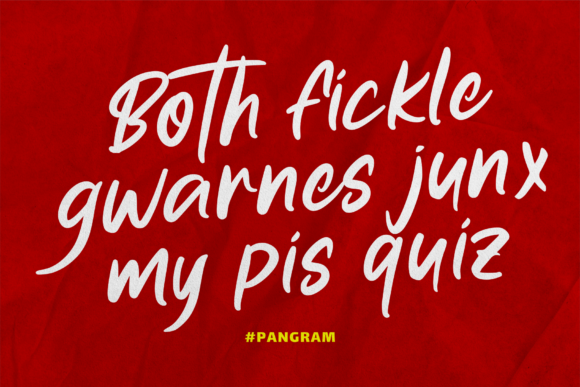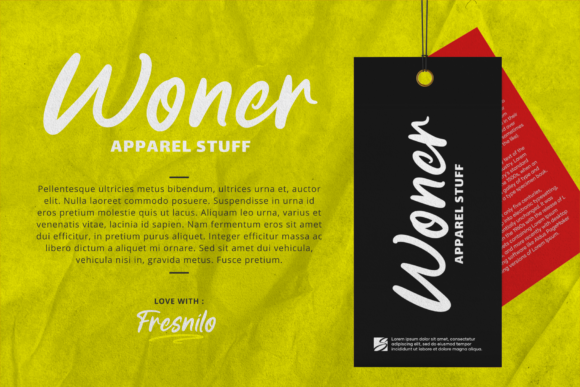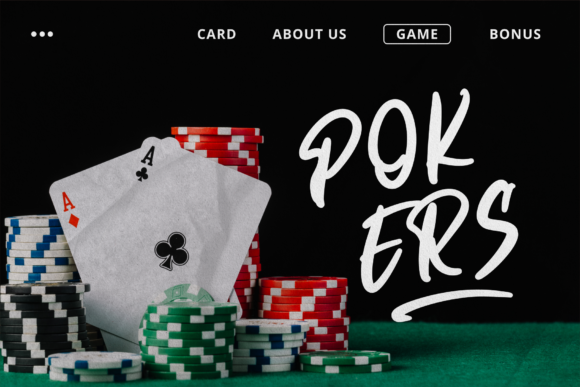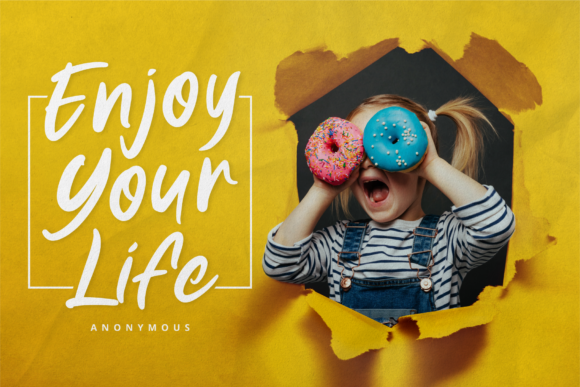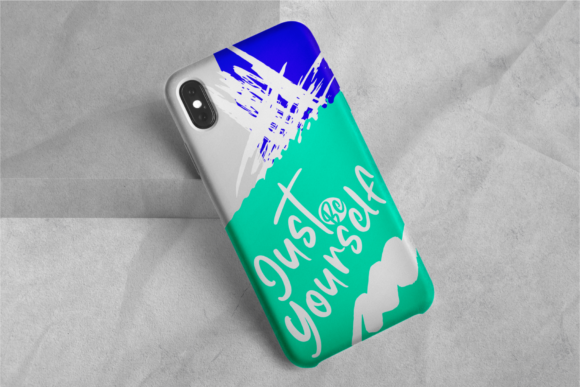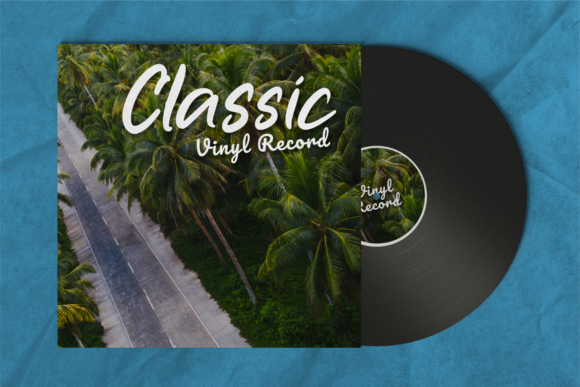
Fresnilo Font: A Simple yet Powerful Brushed Handwritten Font
In the world of typography, fonts play a crucial role in conveying the tone and personality of a design. For designers and crafters looking for a font that exudes strength, confidence, and dynamism, Fresnilo Font is an excellent choice. This simple and thick lettered brushed handwritten font has gained popularity for its unique characteristics and versatility. In this article, we’ll dive into the features and benefits of Fresnilo Font and explore how it can elevate your designs.
What is Fresnilo Font?
Fresnilo Font is a brushed handwritten font that boasts a simple yet bold design. Its thick letters and smooth brushstrokes give it a distinctive look that’s both strong and elegant. The font’s simplicity makes it highly legible, while its dynamic feel adds a touch of sophistication to any design.
Key Features of Fresnilo Font
- Simple and Thick Lettered: Fresnilo Font features thick, sturdy letters that make it perfect for headlines, titles, and emphasis text.
- Brushed Handwritten: The font’s brushed handwritten style gives it a personal and organic feel, making it ideal for designs that require a touch of warmth and character.
- Strong and Confident: Fresnilo Font exudes confidence and strength, making it perfect for designs that require a bold statement.
- Dynamic and Versatile: The font’s dynamic feel and smooth brushstrokes make it suitable for a wide range of design applications, from digital to print.
- Nostalgic Character: Fresnilo Font has a nostalgic feel that adds a touch of vintage charm to any design.
Benefits of Using Fresnilo Font
Fresnilo Font offers several benefits for designers and crafters. Its unique characteristics make it an excellent choice for a variety of design projects, including:
- Logos and Branding: Fresnilo Font’s bold and confident design makes it perfect for logos and branding materials that require a strong statement.
- Posters and Flyers: The font’s dynamic feel and thick letters make it ideal for posters and flyers that need to grab attention.
- Digital and Print Media: Fresnilo Font’s versatility makes it suitable for a wide range of digital and print media, including social media graphics, brochures, and business cards.
- Crafting and DIY Projects: The font’s nostalgic character and handmade feel make it perfect for crafting and DIY projects, such as handmade cards, scrapbooking, and journaling.
Tips for Using Fresnilo Font
To get the most out of Fresnilo Font, here are some tips to keep in mind:
- Use it as a Headline Font: Fresnilo Font’s bold design makes it perfect for headlines and titles. Use it to grab attention and emphasize key messages.
- Pair it with Other Fonts: Fresnilo Font pairs well with other fonts, especially those with a more delicate design. Experiment with different font combinations to create visual interest.
- Experiment with Colors: Fresnilo Font looks great in a variety of colors, from bold and bright to muted and pastel. Experiment with different colors to find the perfect fit for your design.
- Use it for Emphasis Text: Fresnilo Font’s dynamic feel makes it perfect for emphasis text, such as highlighting key information or adding a touch of personality to your design.
Fresnilo Font is a simple yet powerful brushed handwritten font that offers a unique combination of strength, confidence, and dynamism. Its thick letters, smooth brushstrokes, and nostalgic character make it perfect for a wide range of design applications, from logos and branding to crafting and DIY projects. By incorporating Fresnilo Font into your design toolkit, you’ll be able to add a touch of personality and sophistication to your work.
Whether you’re a designer, crafter, or DIY enthusiast, Fresnilo Font is an excellent choice for anyone looking for a font that exudes strength, confidence, and dynamism. So why not give it a try and see how it can elevate your designs?